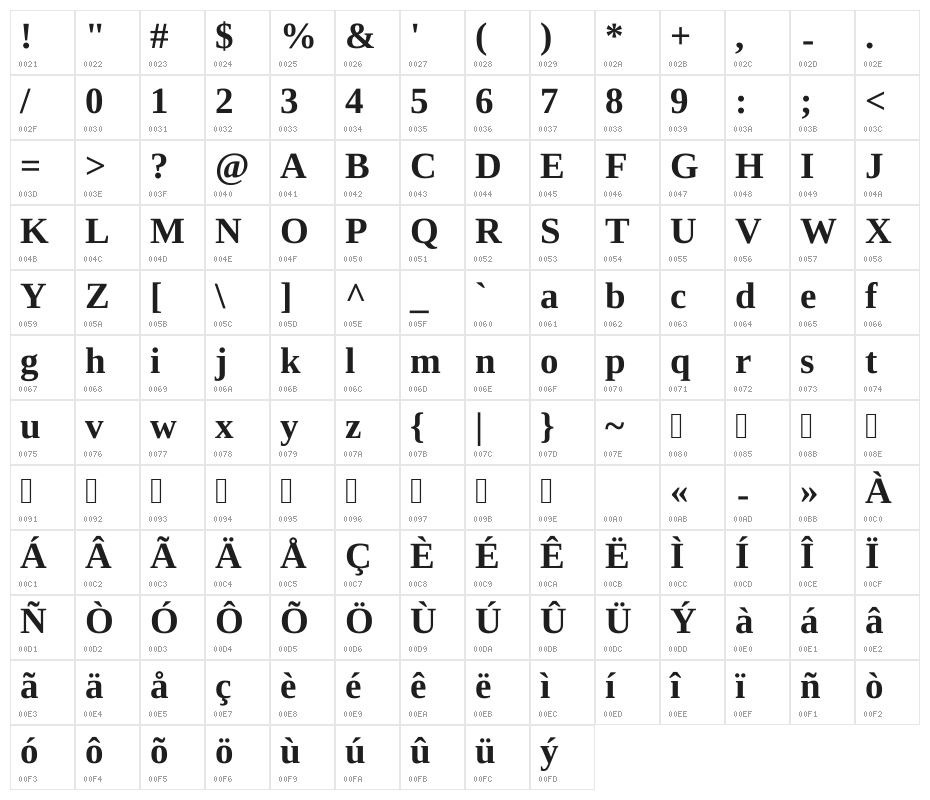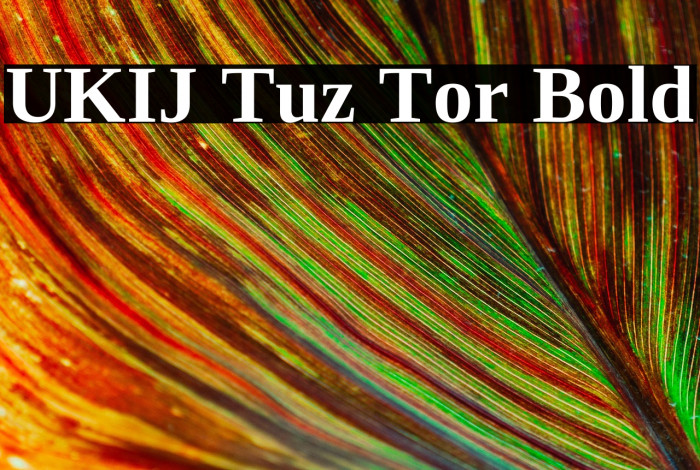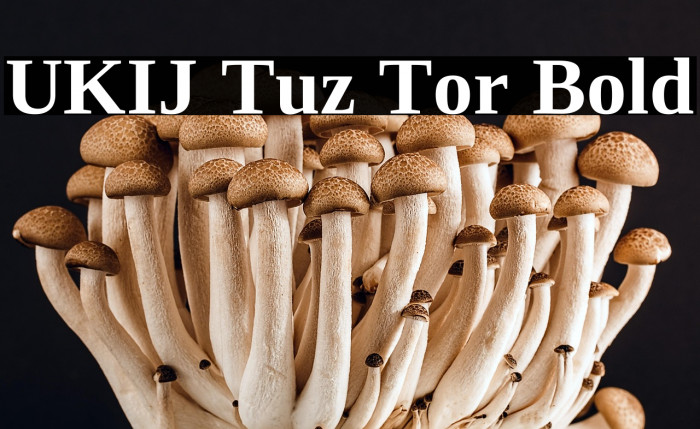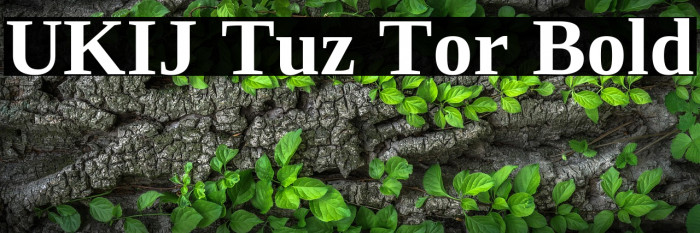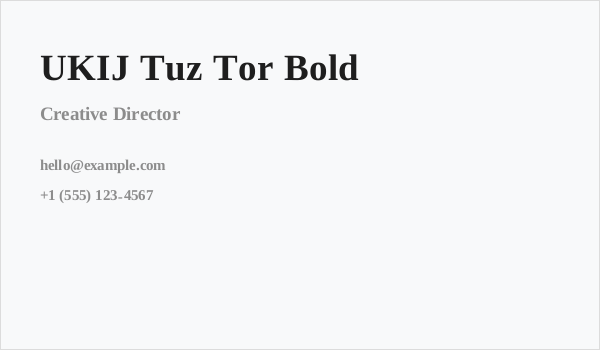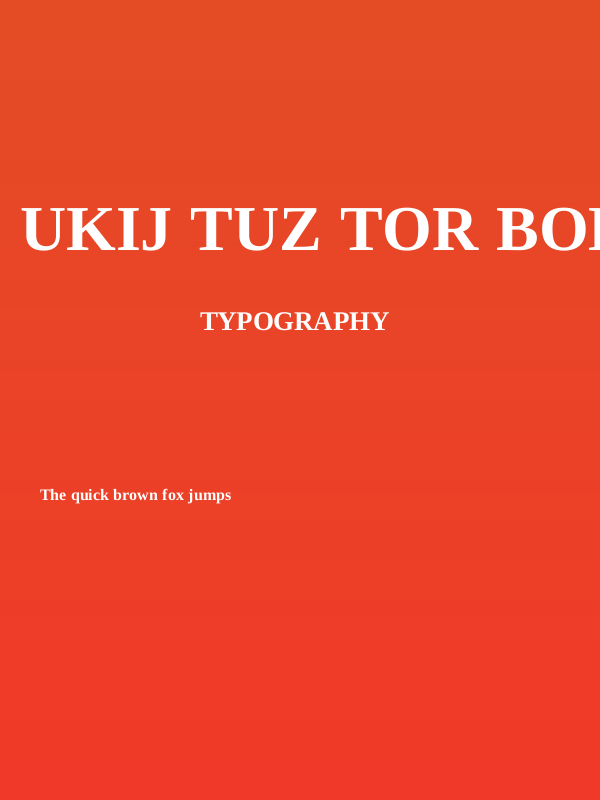
UKIJ Tuz Tor Bold Font
UKIJ Tuz Tor Bold Description
This font features a bold and commanding presence with its strong serif design. The characters are well-defined with a classic serif style, providing a sense of tradition and authority. The uppercase letters are tall and imposing, while the lowercase letters maintain a consistent and harmonious flow. Numbers are clear and robust, ensuring readability. Special characters are crafted with precision, complementing the overall aesthetic. The font's bold weight and high contrast in stroke thickness make it suitable for impactful and attention-grabbing designs.